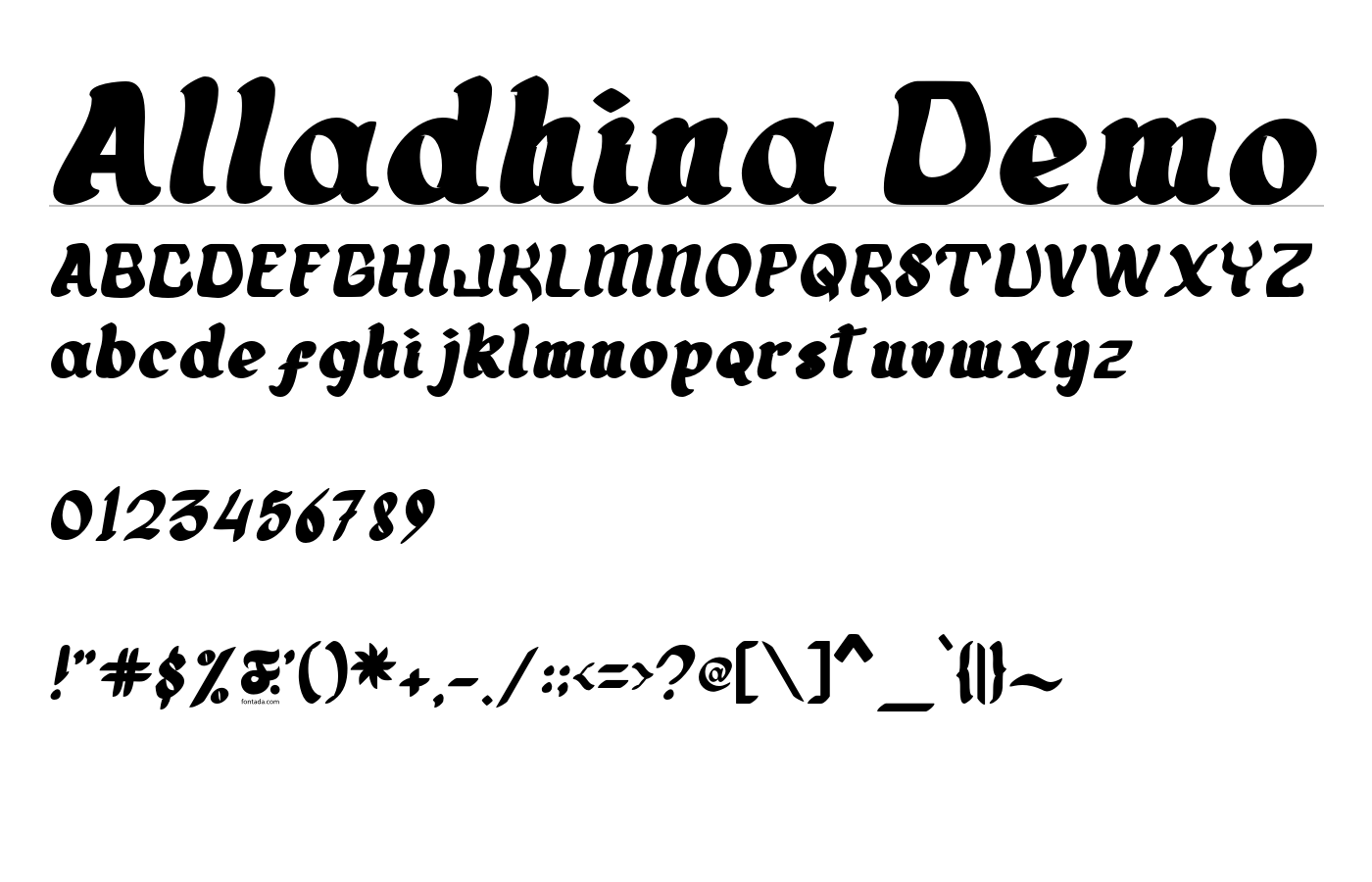
Alladhina Demo is a bold, serif typeface with a unique, slightly playful character created by its irregular curves and strong stroke contrasts. Its moderately condensed letterforms and angled serifs give it a dynamic, vintage-inspired feel that works well for eye-catching headlines, logos, and branding with a distinctive, spirited personality. This font is ideal for projects aiming to blend tradition with a touch of whimsy and energy.
Alladhina Demo Font
About Alladhina Demo Font